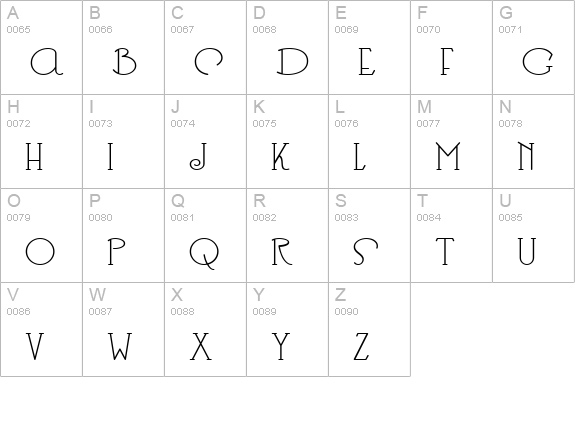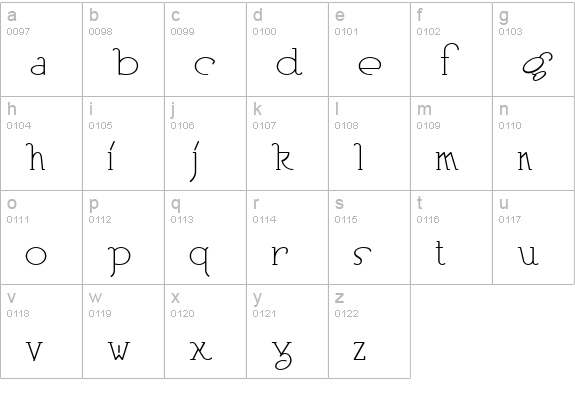
HeberlingCasualNF Medium Font Details
HeberlingCasualNF Medium is a balanced, medium-weight variant in the HeberlingCasualNF typeface family \xE2\x80\x94 well suited to sub-headlines, navigation, and balanced editorial work.
HeberlingCasualNF Medium is a visually appealing and versatile font that effortlessly combines a casual and playful vibe with a touch of elegance. Its medium weight strikes the perfect balance, making it suitable for a wide range of projects, from branding and advertising to invitations and social media graphics. The letterforms of HeberlingCasualNF Medium are carefully crafted with a balanced mix of rounded edges and sharp angles, resulting in a unique and eye-catching design. The flowing curves and subtle variations in stroke width give the font a natural and organic feel, while maintaining excellent legibility. One of the standout features of HeberlingCasualNF Medium is its ability to evoke a sense of warmth and approachability. The slightly irregular shapes and friendly letterforms create a welcoming and inviting atmosphere, making it an ideal choice for projects that require a personal and friendly touch. Whether you're designing a logo for a trendy cafe, creating a poster for a music festival, or crafting a greeting card for a loved one, HeberlingCasualNF Medium is sure to leave a lasting impression. Its versatility and charm make it a perfect fit for both print and digital applications. Best of all, HeberlingCasualNF Medium is available for free download at FontsMarket.com. This means that you can effortlessly add this beautiful font to your collection without any cost. So why wait? Enhance your designs with the charm and versatility of HeberlingCasualNF Medium today!